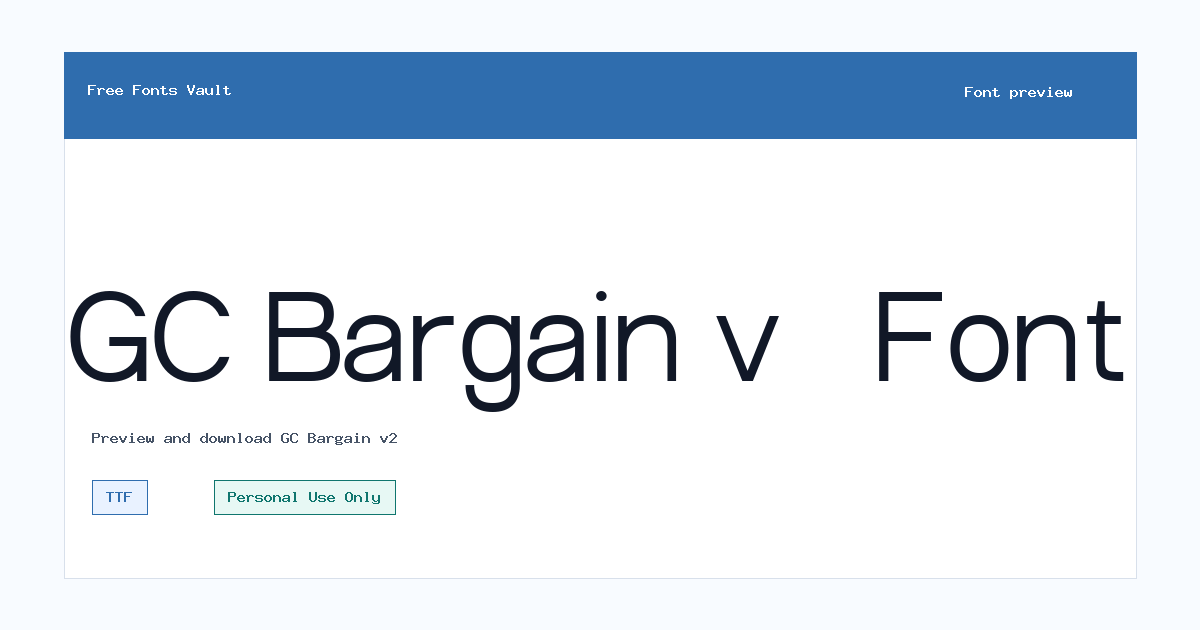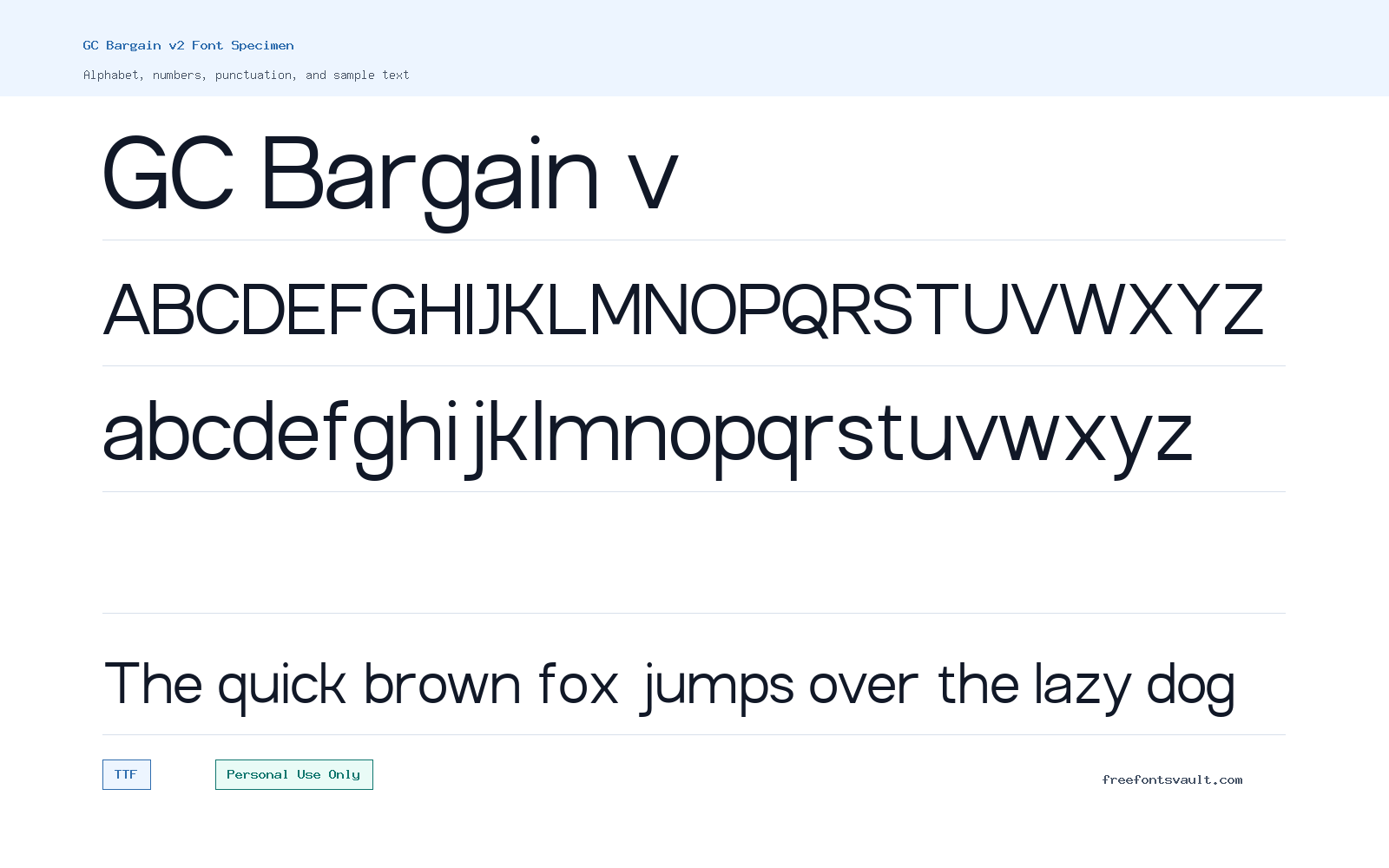
GC Bargain v2
- Designer Hanif Dwi Sulistyo Of Glyphonic
GC Bargain v2 is a sans serif font family with a clean, practical look and a wide range of demo weights for testing display and layout ideas.
About GC Bargain v2
GC Bargain v2 works best when you want a straightforward sans serif that can move between light, regular, medium, semibold, bold, extra bold, and thin styles. The family structure gives you room to build contrast without switching fonts too quickly. Thin and extra light styles can help with spacious headlines or refined title treatments, while the medium and bold cuts are better suited to stronger headings, buttons, posters, thumbnails, and short promotional text. Because the files are demo TTF fonts, it is a good idea to test the exact words you plan to use before building a full design around them.
Use the preview tool to check spacing, uppercase shapes, numbers, punctuation, and any special characters your project needs. Lighter weights may look elegant at large sizes, but they can lose clarity in small UI labels or low-resolution images. Heavier weights should be easier to read in short headlines, but avoid using all caps for long lines unless the spacing feels comfortable. For pairing, try GC Bargain v2 with a calm serif for editorial layouts, or use one of its lighter weights beside a heavier cut from the same family for simple hierarchy. Keep body text tests realistic: paste a full sentence, a short heading, a price, and a call-to-action so you can see how the font behaves in real use.
- Includes thin, extra light, light, regular, medium, semibold, bold, and extra bold style options
- Headlines, posters, social graphics, banners, and short display text
- Logo mockups, branding drafts, packaging concepts, and personal design experiments
The font is credited to Hanif Dwi Sulistyo of Glyphonic.
How many styles can I test?
The family has several demo styles, including thin, extra light, light, regular, medium, semibold, bold, and extra bold.
What is GC Bargain v2 best used for?
It is most useful for short text such as headings, posters, social posts, banners, logo drafts, and layout mockups where a clean sans serif style is needed.
Should I use it for long paragraphs?
Test carefully before using it for long reading text. The heavier and lighter styles may work better for display use than for dense body copy.